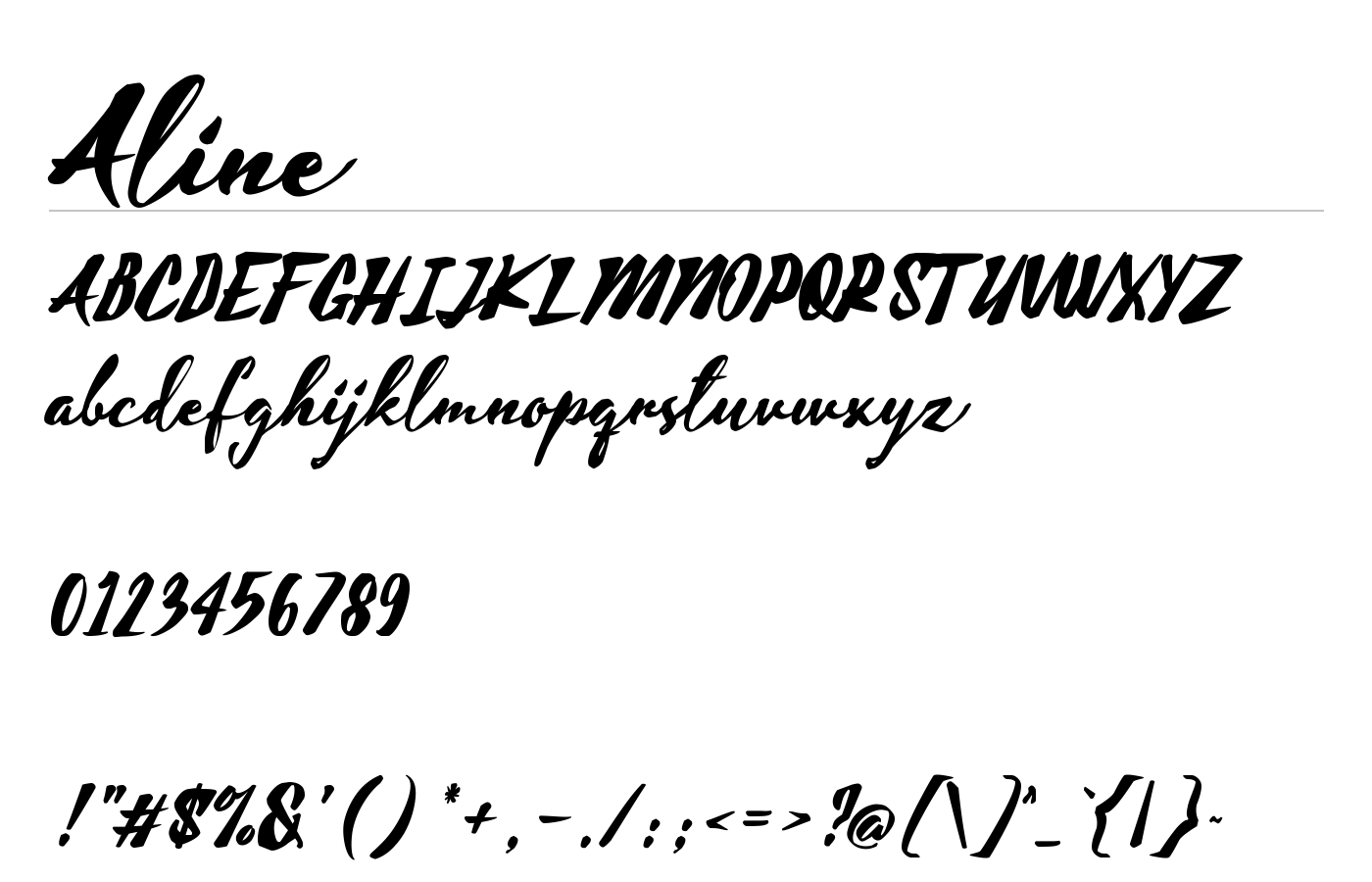
Aline is a bold, brush-style script font with dynamic, flowing strokes that combine both thick and thin contrasts for a lively, energetic feel. Its casual yet expressive letterforms make it perfect for creative branding, headlines, and invitations where a personal, handcrafted touch is desired. This font works well to convey warmth and vibrancy, adding a stylish flair to fashion, lifestyle, and artistic designs.
Aline Font